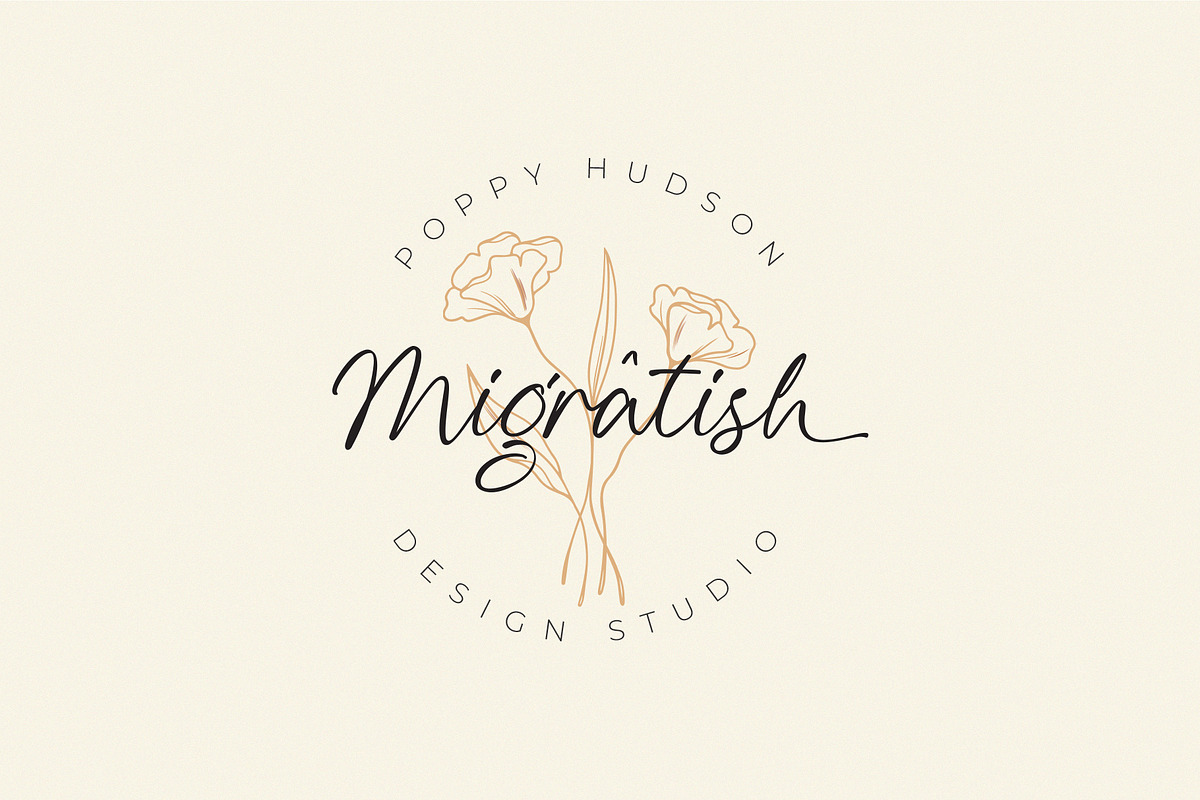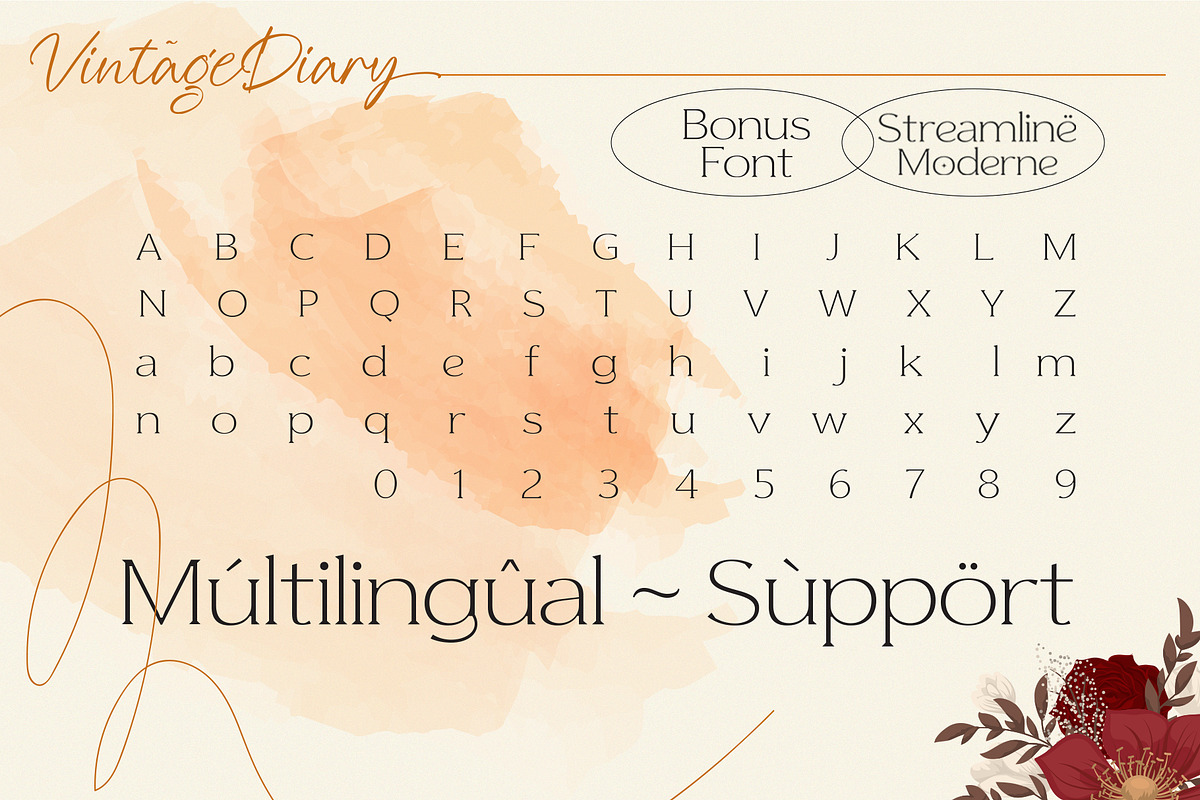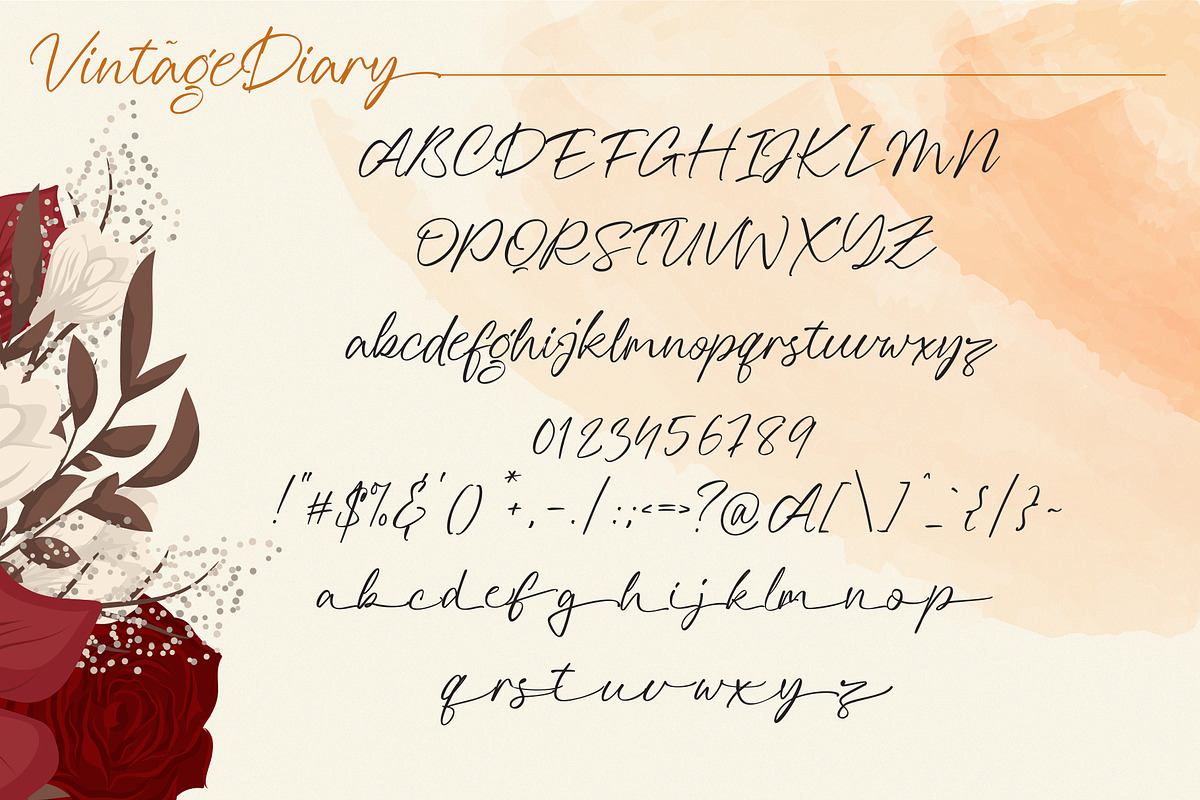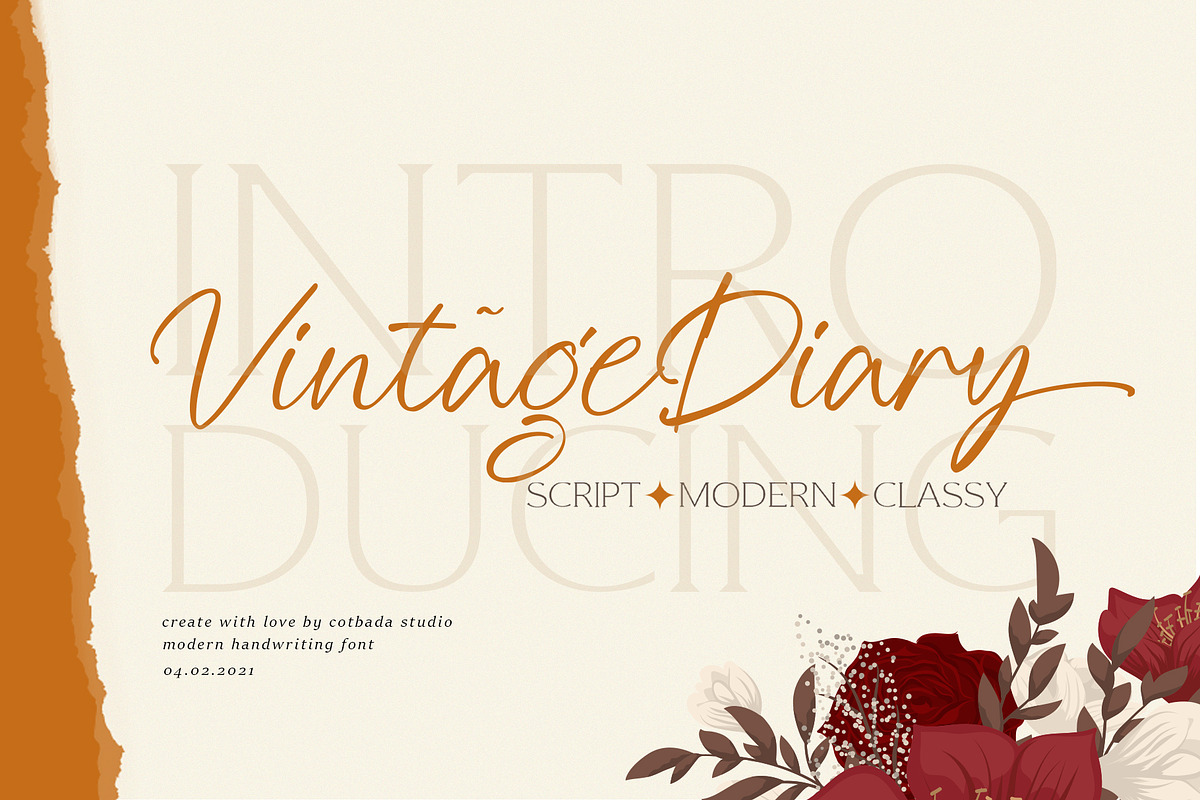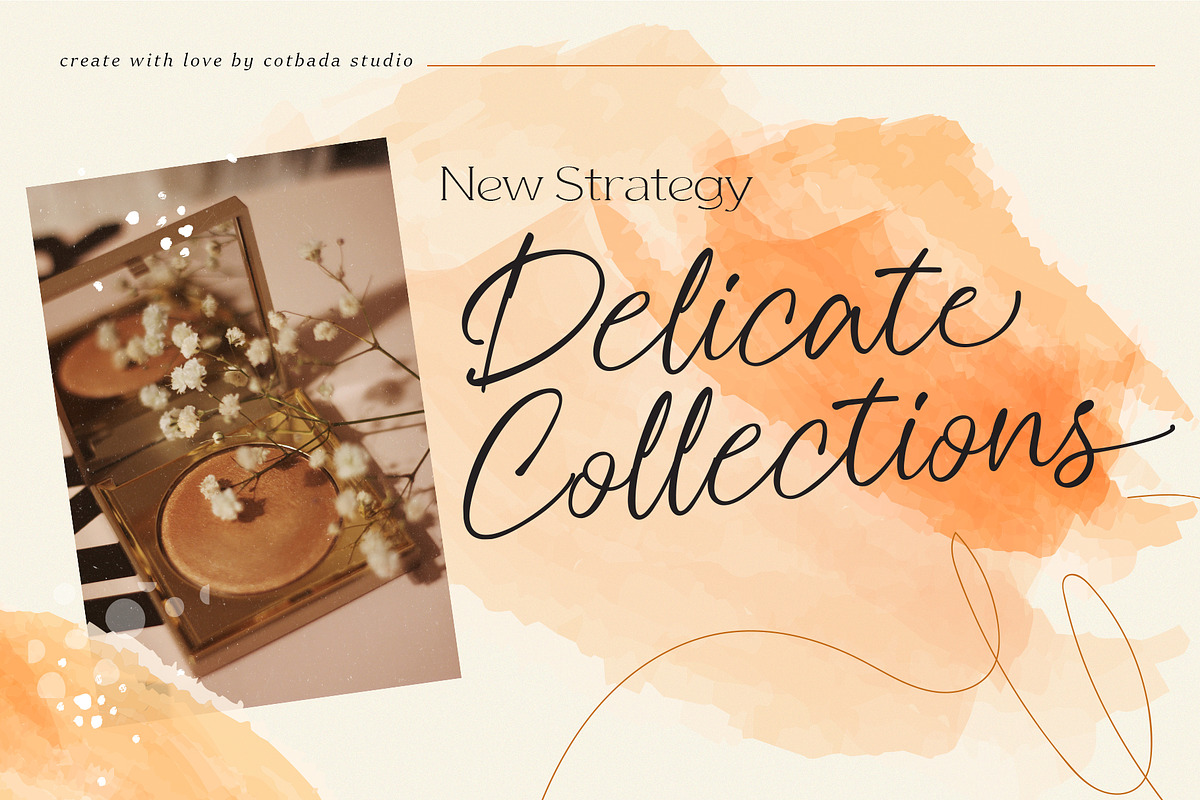
Vintage Diary Script
Vintage Diary Script is a unique, cool and modern handwritten font. It's hand look style makes it perfect for use in all your design projects be it logos, signatures, labels, packaging design, blog headlines.
Streamline Moderne is a gorgeous serif typeface that is both classically elegant and modern. Create beautiful wedding invitations, use it as an elegant solution for your next magazine layout,logo, powerpoint templates design , quotes teks or choose Streamline Moderne for any graphics that require a sleek look with a vintage flair.
Uppercase Characters
Lowercase Characters
Multilingual support for various languages including: French, German, Spanish, Portuguese, Italian, Dutch, Finnish, Swedish, and more.